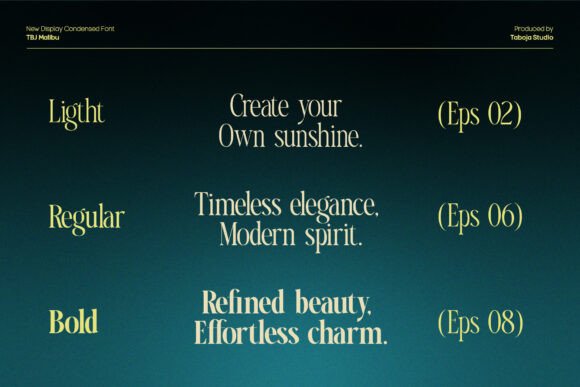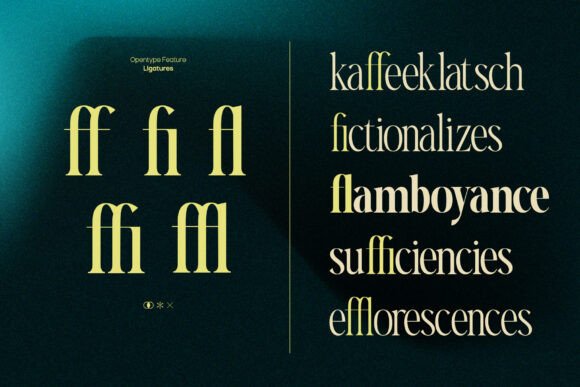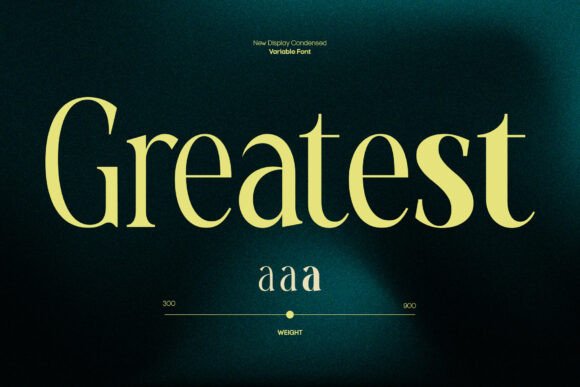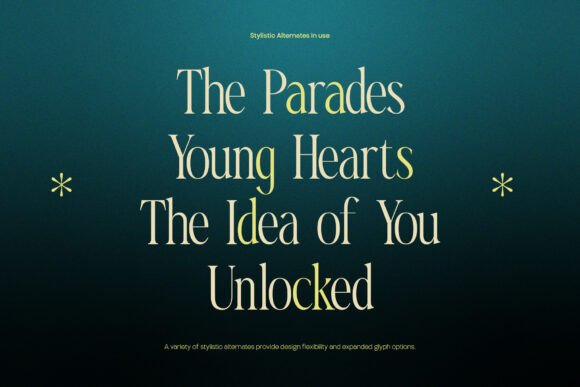
Malibu Font
Malibu is a refined condensed display font that brings a modern yet timeless aesthetic to the world of typography. this typeface is crafted to meet the needs of contemporary designers who seek both sophistication and functionality in their projects.
With its slim, tall proportions and clean yet expressive form, TBJ Malibu delivers an unparalleled balance between elegance and adaptability. This font is designed to elevate branding, editorial layouts, digital interfaces, and other creative applications with its commanding presence.
Malibu offers great flexibility with three different variable font styles: Light, Regular, and Bold. Each style is carefully crafted to provide a wide spectrum of visual impact
The variable font feature allows designers to fine-tune width and weight adjustments, ensuring precise control over typography in any design context. Whether used in luxury branding, editorial layouts, digital interfaces, fashion campaigns, or packaging design, TBJ Malibu adapts seamlessly to diverse creative needs.